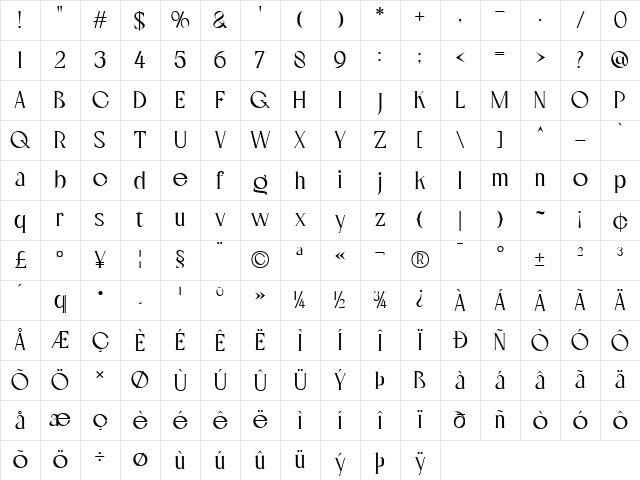
Locrian Regular Free Font
Locrian Regular
Foundry: Mofrtwentyfour
Designer: Mohamad Farhan Ramadhan
Design Context for Locrian
Locrian is a composed and adaptable typeface that performs quietly and consistently across a wide range of design contexts.
Pro Tip: Use Locrian in both headline and body roles to test its range before committing to a single application.